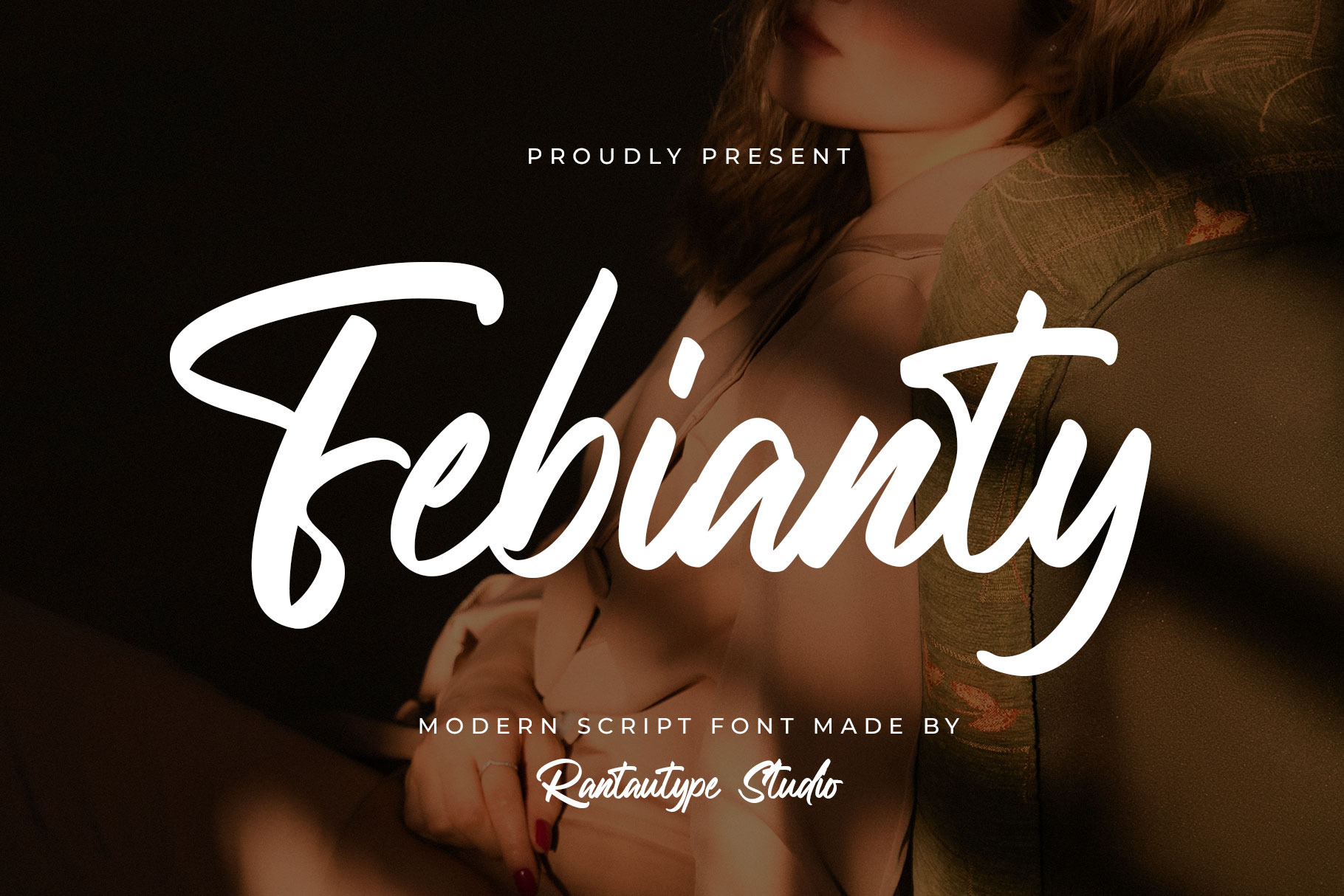
Febianty Modern Script Font
Febianty modern script font with casual look. Febianty come with both stylish and easygoing, perfect for balancing sophistication with friendliness. Febianty is a perfectly choice for any creative endeavor, creating, modern, lifestyle design such as logotype, title, cover, branding, invitations, wedding designs, display and magazine, social media posts, advertisements, printed quotes, product packaging, corporate brand, product designs, labels, photography, watermarks, special events and any other project with modern touch.
- Standart Glyphs
- Alternate and ligature